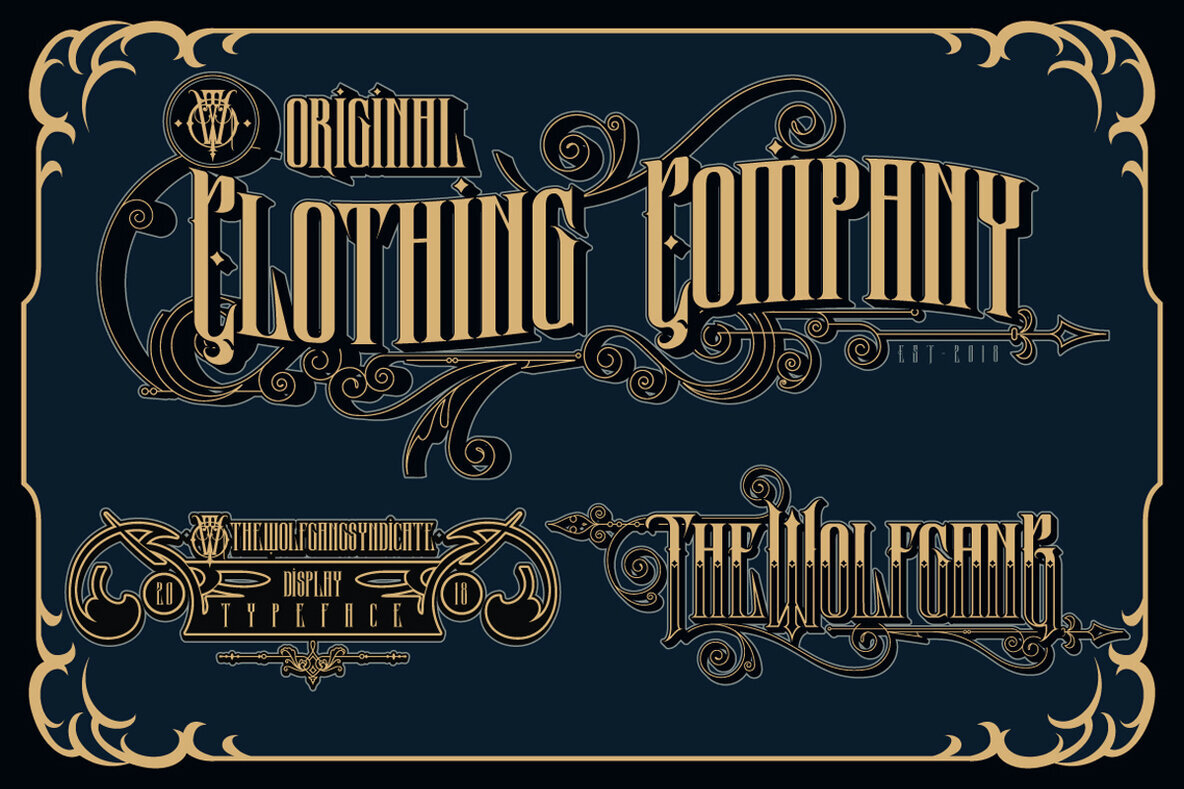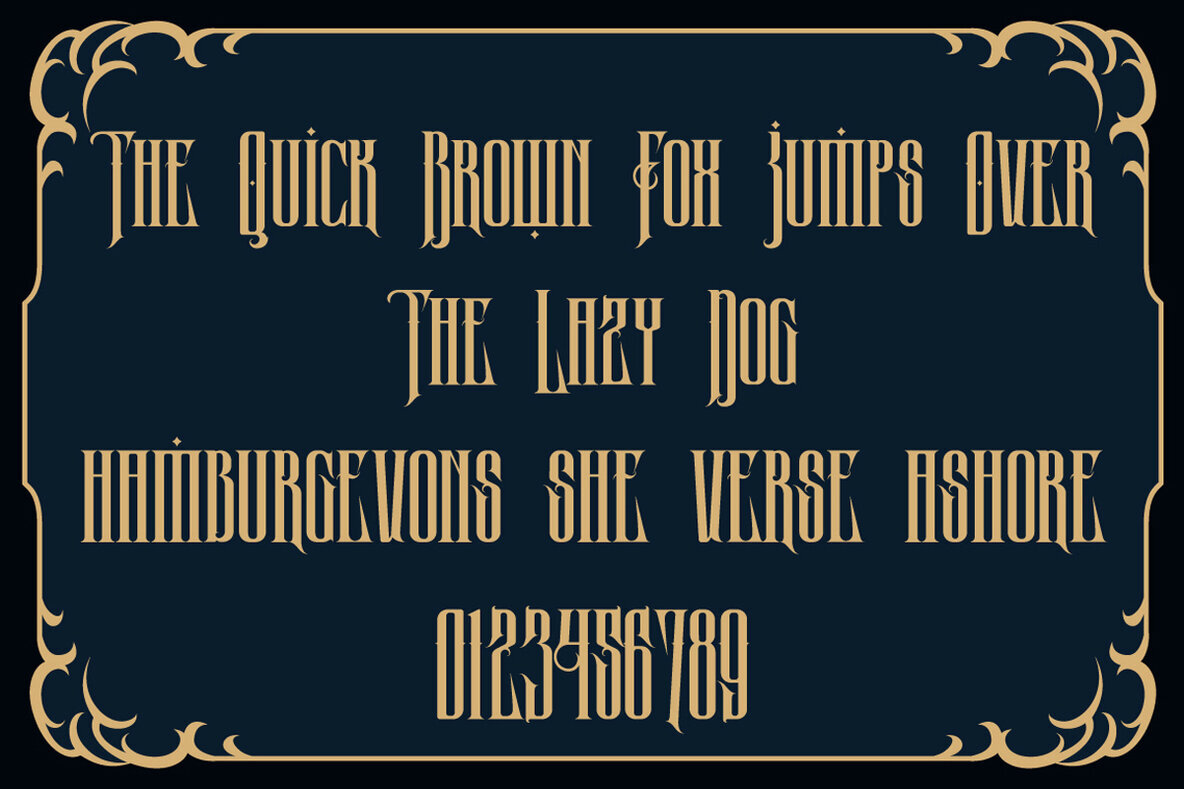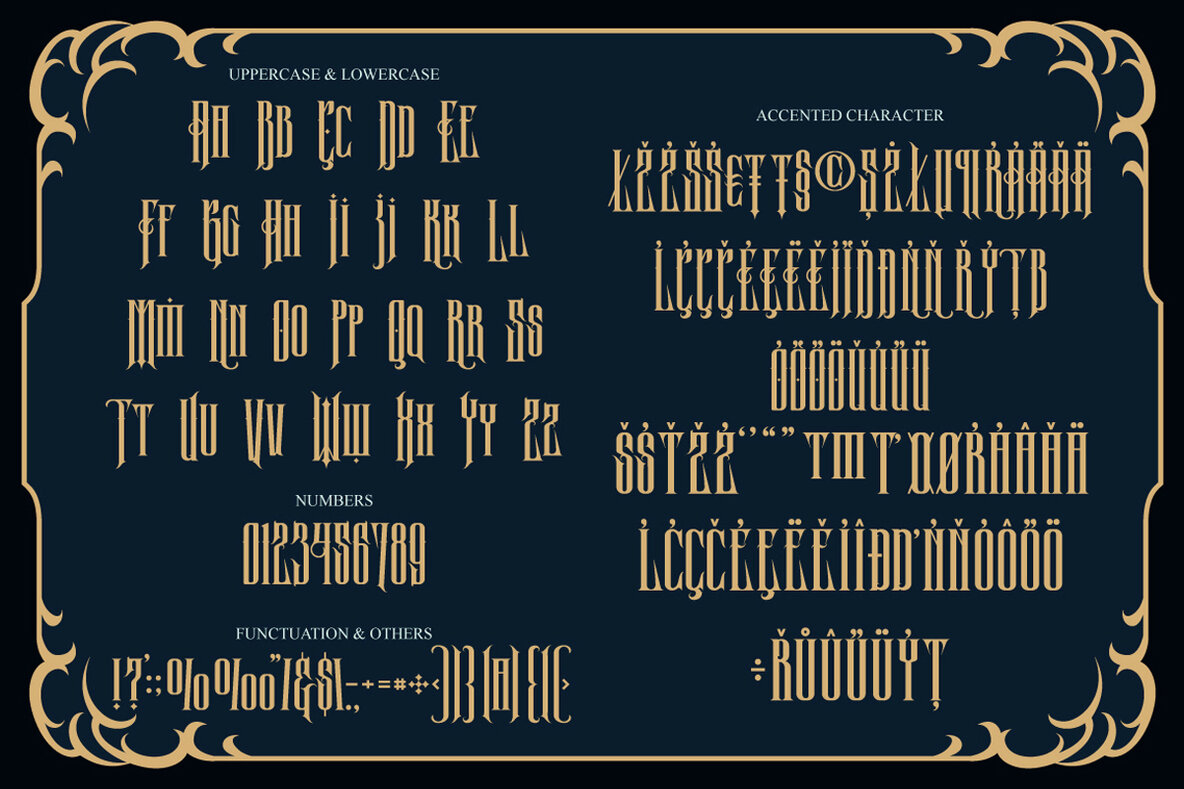
Wolfgang Font
Wolfgang Regular
Wolfgang is a versatile display font ideal for a variety of creative projects. Its distinctive design enhances badges, branding, labels, apparel, headlines, signage, logos, quotes, and more. If you have any questions or need assistance, please feel free to contact us.Wolfgang: A New Display Typeface